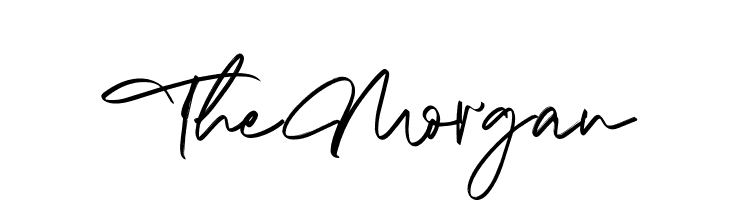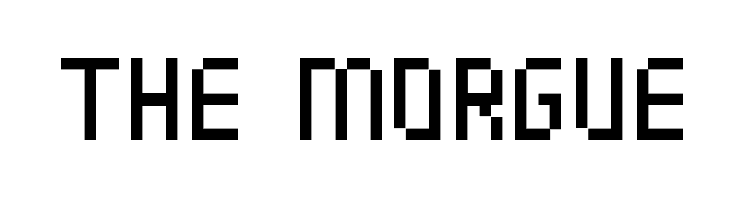
A modern, sleek font with elongated, narrow characters and a stylish, minimalistic design.
A modern, geometric font with clean lines and a minimalistic style.
A modern, geometric font with clean lines and a uniform appearance.
A playful, hand-drawn font with double-line outlines and a whimsical style.
A lively handwritten font with fluid, connected strokes and varying thickness.
A playful, hand-drawn font with intricate patterns and doodles.
A dynamic and fluid handwritten font with elegant, flowing letterforms.
A bold, cursive font with elegant swashes and flowing letterforms.
An elegant script font with flowing, cursive strokes and artistic flair.